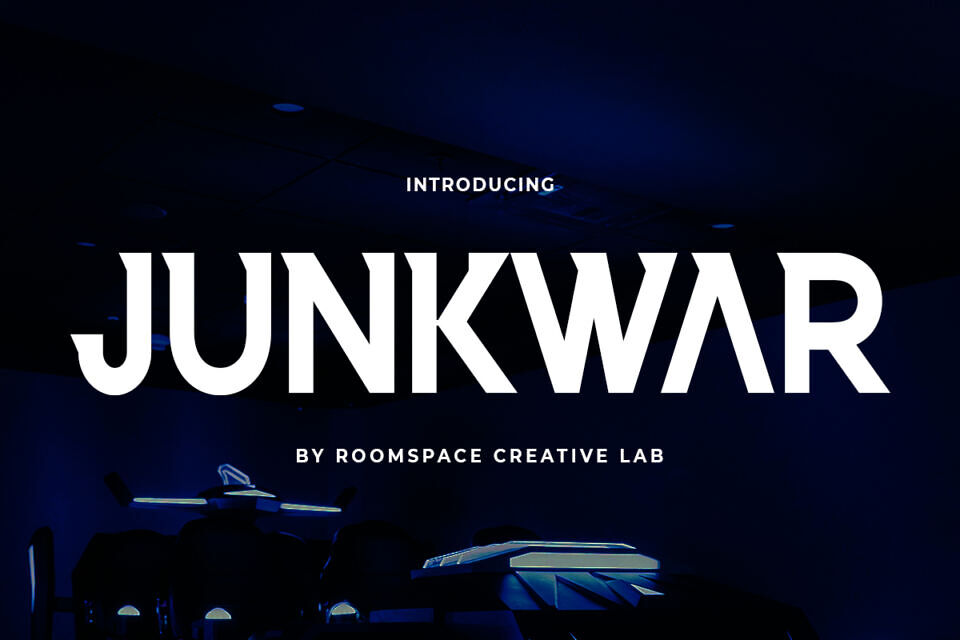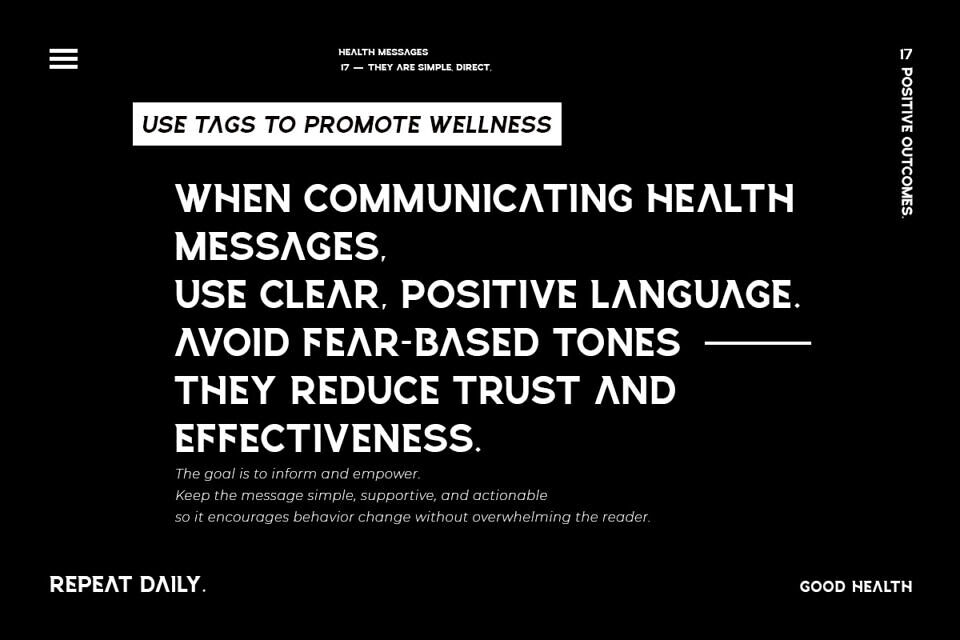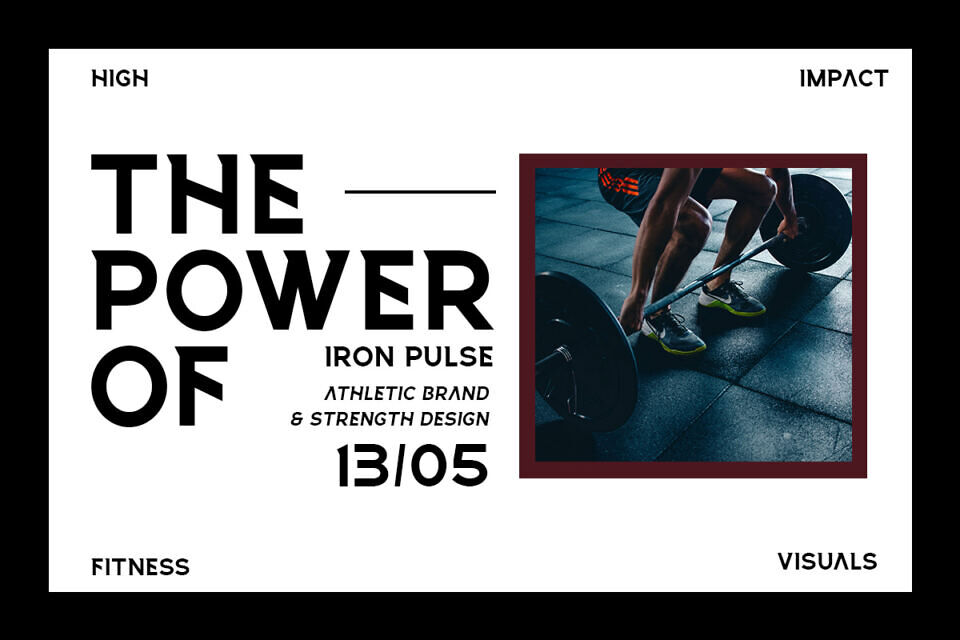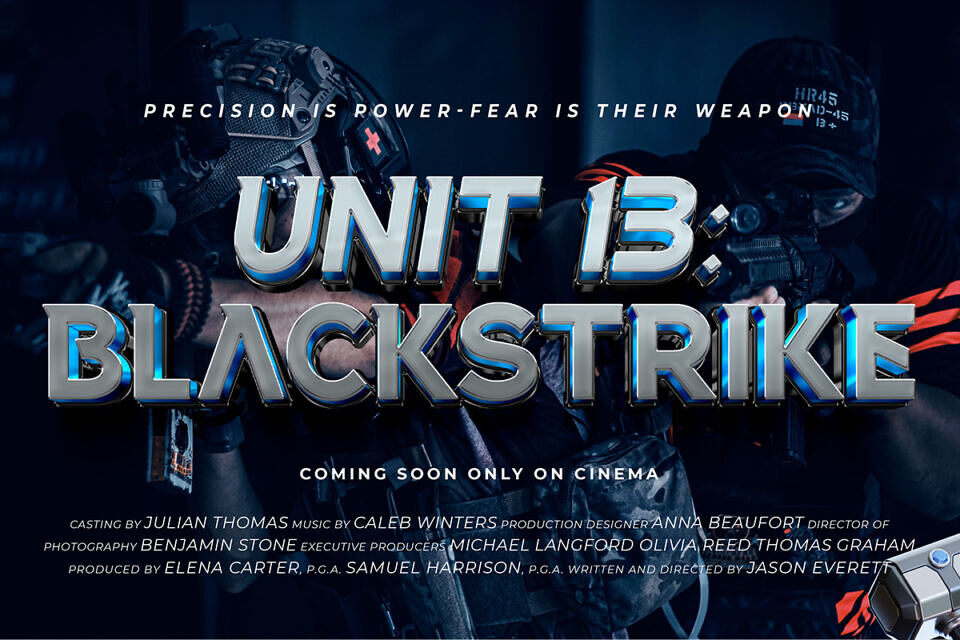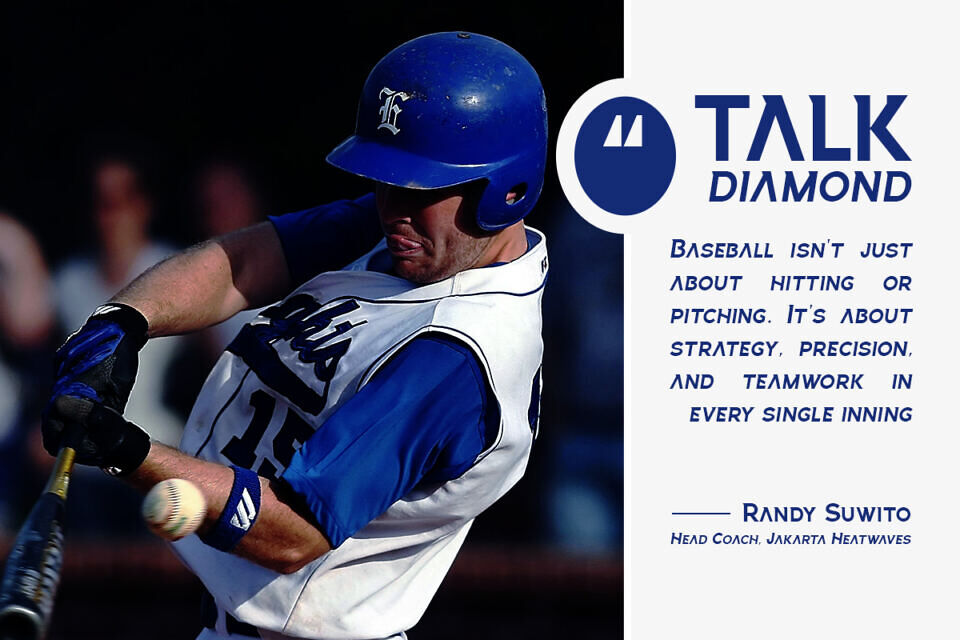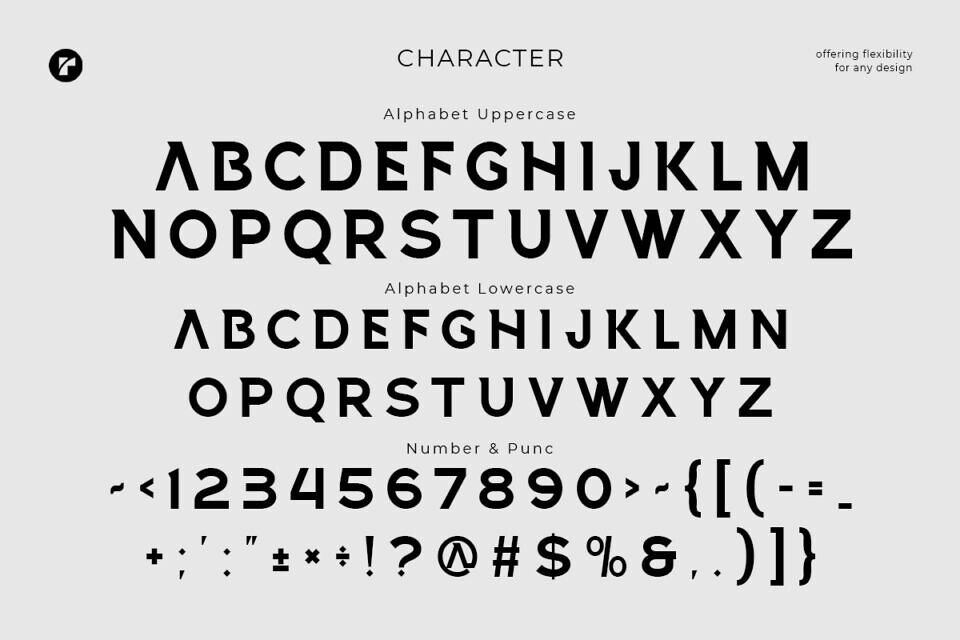
Junkwar Font
Junkwar is a bold and dynamic game font where modern energy meets refined precision. Designed to capture attention, Junkwar blends sharp edges with a clean, contemporary aesthetic, making it the perfect choice for designs that demand impact.
Whether you’re working on gaming posters, digital art, bold headlines, or branding visuals, Junkwar brings a powerful energy to every word. This font is ideal for designers and creators who want a font that’s bold, modern, and unforgettable.